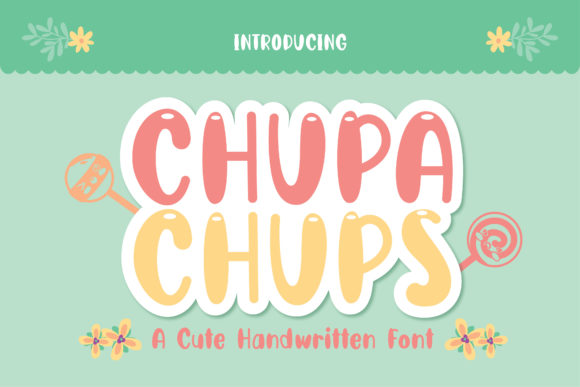
The Chupa Chups Font: A Sweet Addition to Your Design Toolkit
I’ll never forget the time I was working on a project for a client who wanted a fun, playful vibe. I had spent hours browsing through font libraries, but nothing seemed quite right. That was until I stumbled upon the Chupa Chups font. Its unique, natural style instantly caught my attention, and I knew I had found the perfect fit. In this article, I’ll share my experience with this beautiful font, its features, and how to make the most of it in your designs.
- ✨ The Chupa Chups font is incredibly versatile, making it suitable for a wide range of designs, from branding and advertising to packaging and more.
- ✅ Its natural and unique style adds a touch of personality to any project.
- 💫 The font comes with a range of OpenType features, glyphs, and stylistic alternates, allowing for endless variations and creative possibilities.
While the Chupa Chups font is an excellent choice for many designs, there are a few things to keep in mind:
- ⚠️ Some of the more intricate details may not render well at very small font sizes.
- 🤔 The font’s uniqueness may not make it the best fit for very formal or traditional designs.
The Story Behind Chupa Chups
The Chupa Chups font was inspired by the classic lollipop brand of the same name. The font’s designer aimed to capture the playful, carefree spirit of the brand in a unique and versatile typeface. The result is a font that’s perfect for designers, crafters, and creative hobbyists looking to add a touch of personality to their work.
Q: What type of designs is Chupa Chups best suited for?
A: Chupa Chups is a versatile font suitable for a wide range of designs, including branding, advertising, packaging, and more.
Q: Does Chupa Chups come with any OpenType features?
A: Yes, Chupa Chups comes with a range of OpenType features, including stylistic alternates, glyphs, and more.
Q: Is Chupa Chups suitable for body text?
A: While Chupa Chups is a beautiful font, it’s best suited for display text. For body text, you may want to choose a more traditional font.